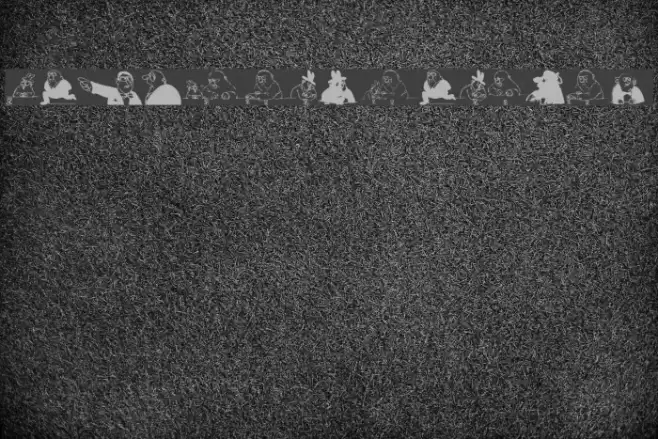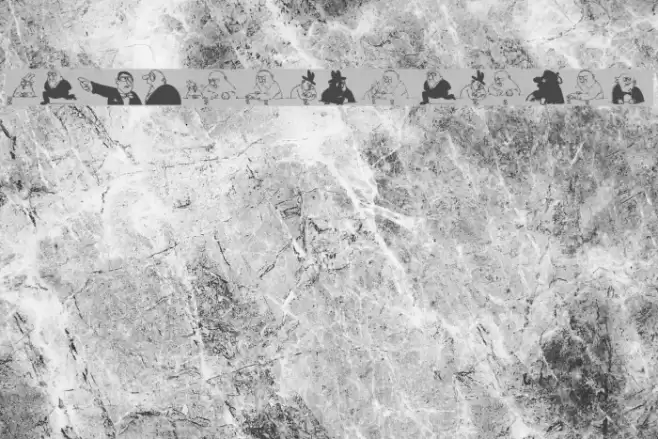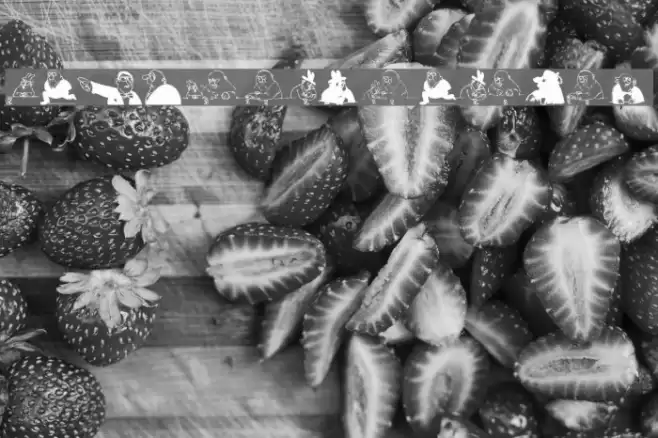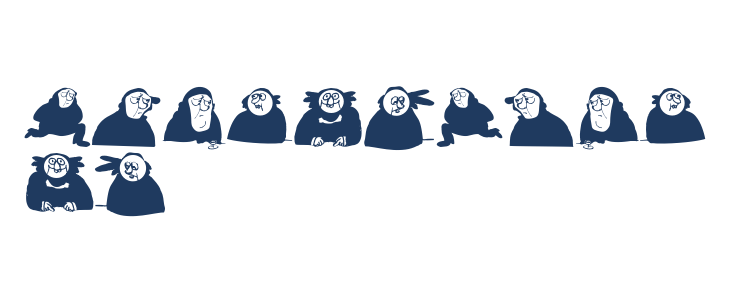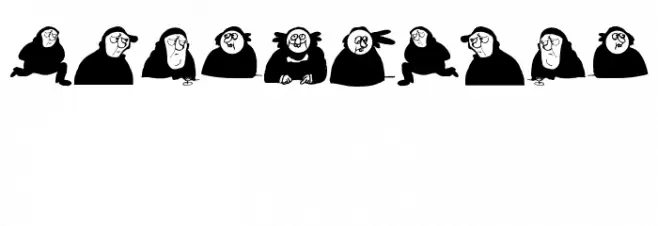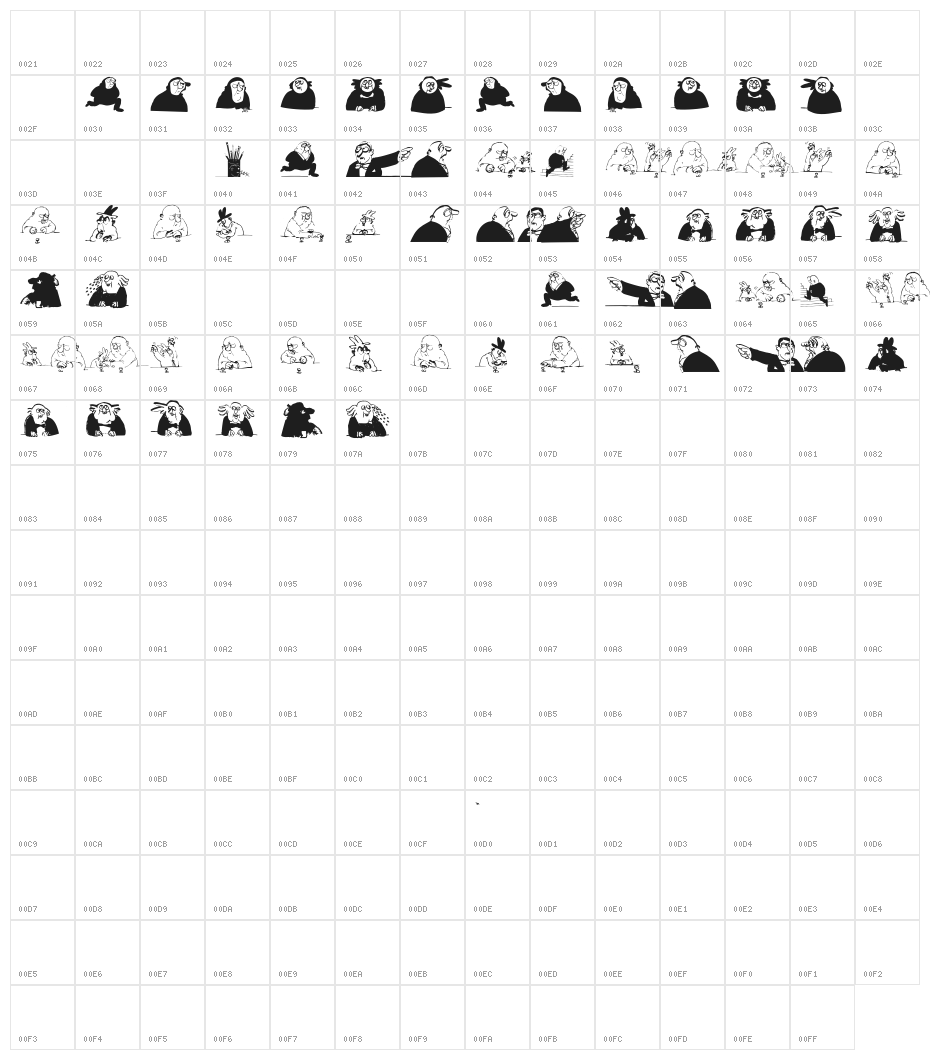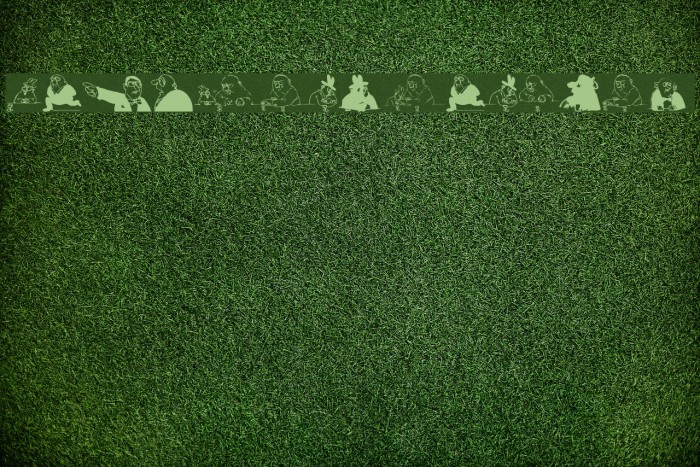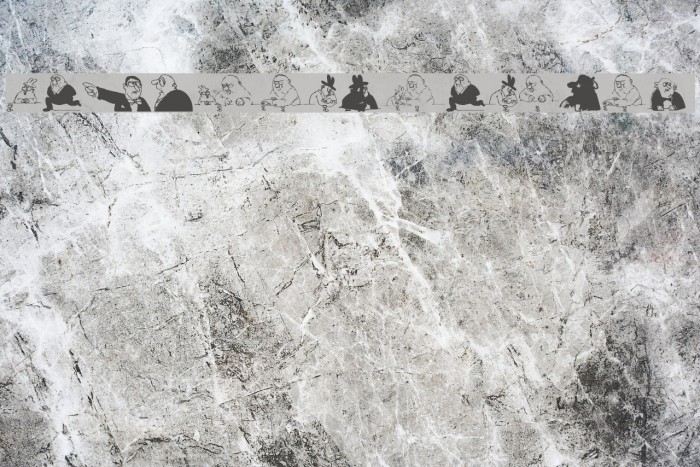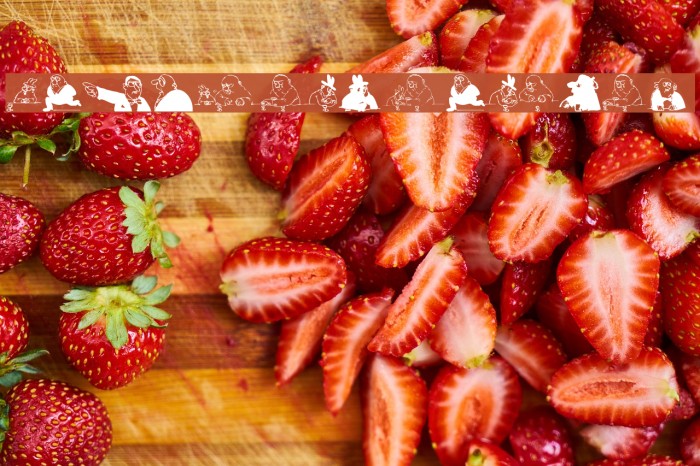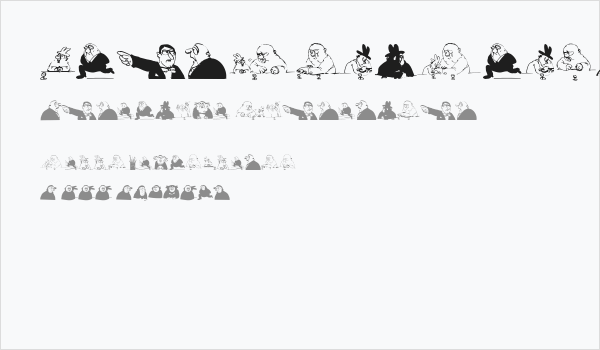
PardonThankYou Font
PardonThankYou Description
A whimsical, illustrative font composed of hand-drawn cartoon characters forming each letter and number, with playful and exaggerated expressions and gestures. The figures are outlined in black, with some filled areas for contrast, and each glyph is unique in its depiction, giving the typeface a lively, comic feel.
A playful, cartoon character-based decorative font from Uncategorized fonts.
- Proposed Projects: Children's books, comic strips, playful posters, party invitations, educational materials, branding for kid-focused products.
- Overall Style: Whimsical, Playful, Comic
- Use Case: Headlines, Posters, Logos, Children's content